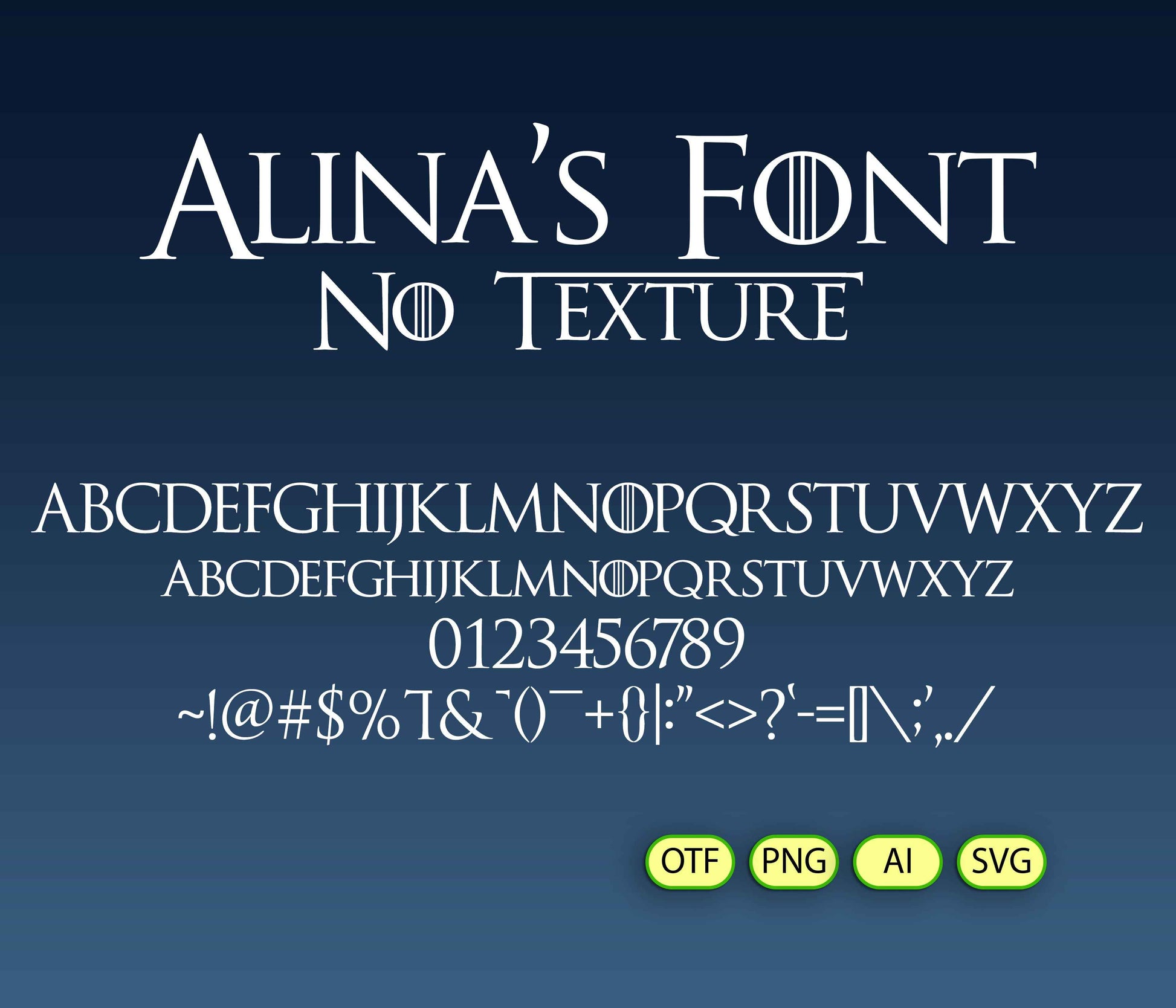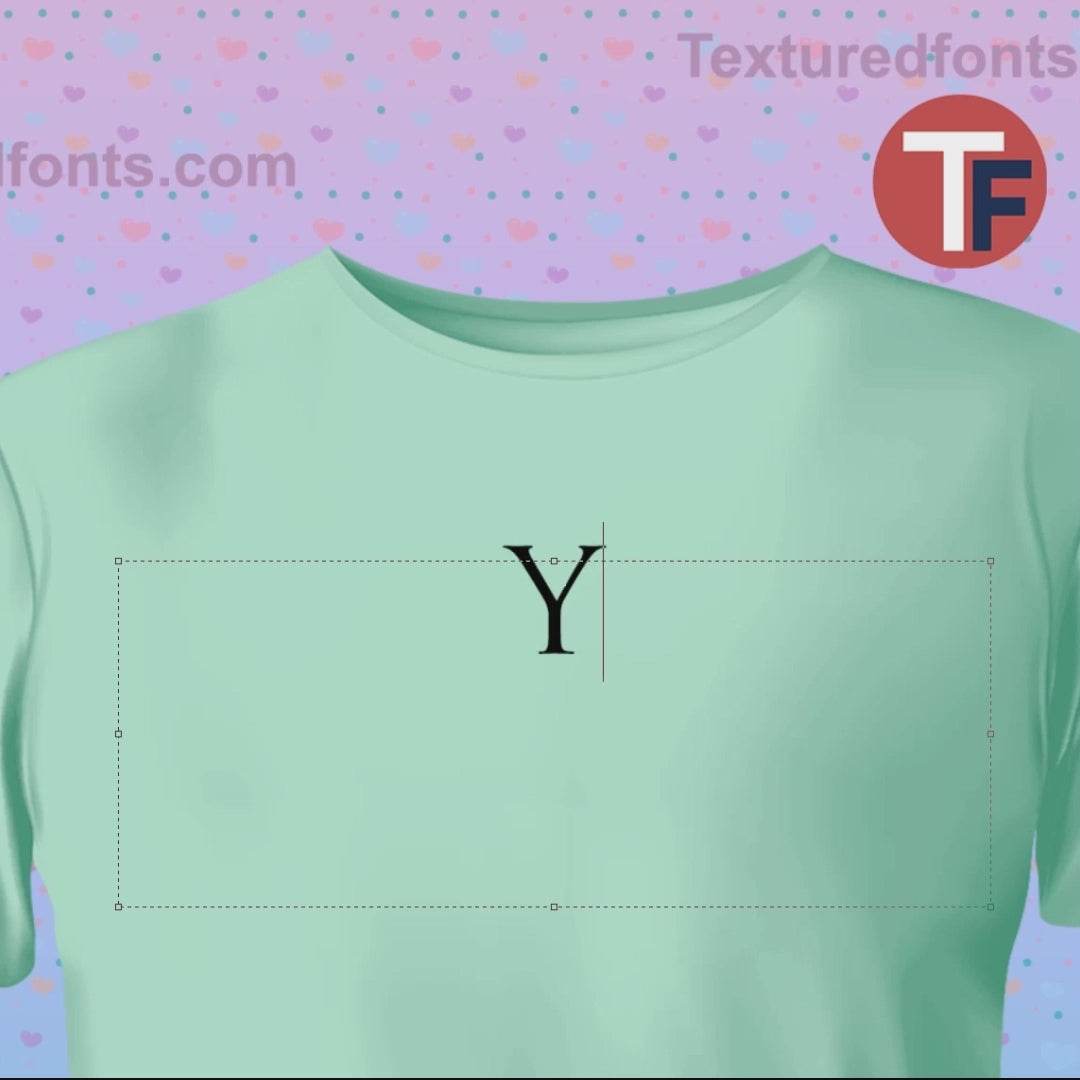
Kingdoms of Thrones Font
Forge Your Epic with the Kingdoms of Thrones Font
Step into the realm of epic fantasy with our Kingdoms of Thrones font, crafted to capture the grandeur and intensity of one of television's most iconic sagas. Ideal for fans, creators, and designers looking to evoke the rugged, medieval aesthetic of a legendary series, this font ensures your projects resonate with the power, intrigue, and drama of an epic tale.
Our Kingdoms of Thrones-inspired font features stark, angular lines and bold construction, mirroring the harsh landscapes and formidable castles of the series. It’s perfect for a wide array of uses:
Our Kingdoms of Thrones font not only pays homage to the series but also empowers you to infuse your designs with the series' majestic and formidable essence. Whether you’re developing promotional materials, crafting fan merchandise, or adding a touch of epic fantasy to personal projects, this font allows you to communicate with the regal and bold spirit synonymous with an epic fantasy tale. Ready to rule your creative kingdom? Let this font be your banner to victory.